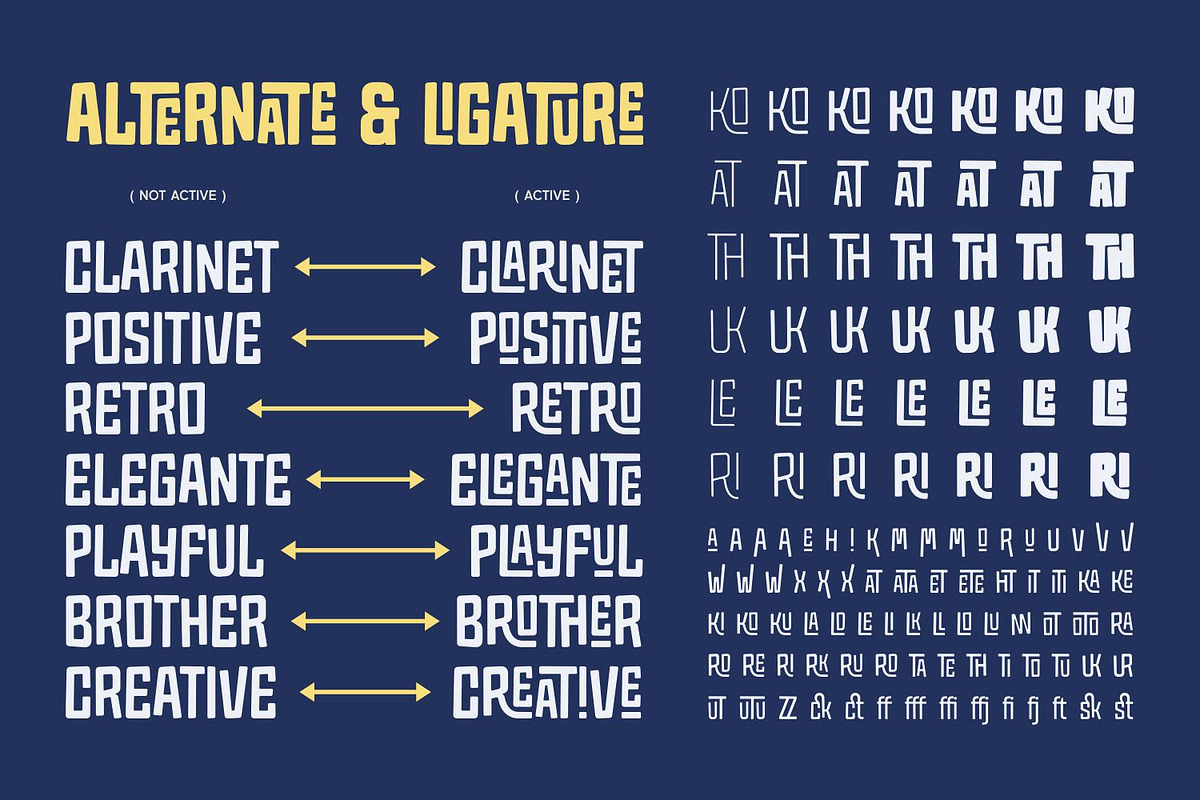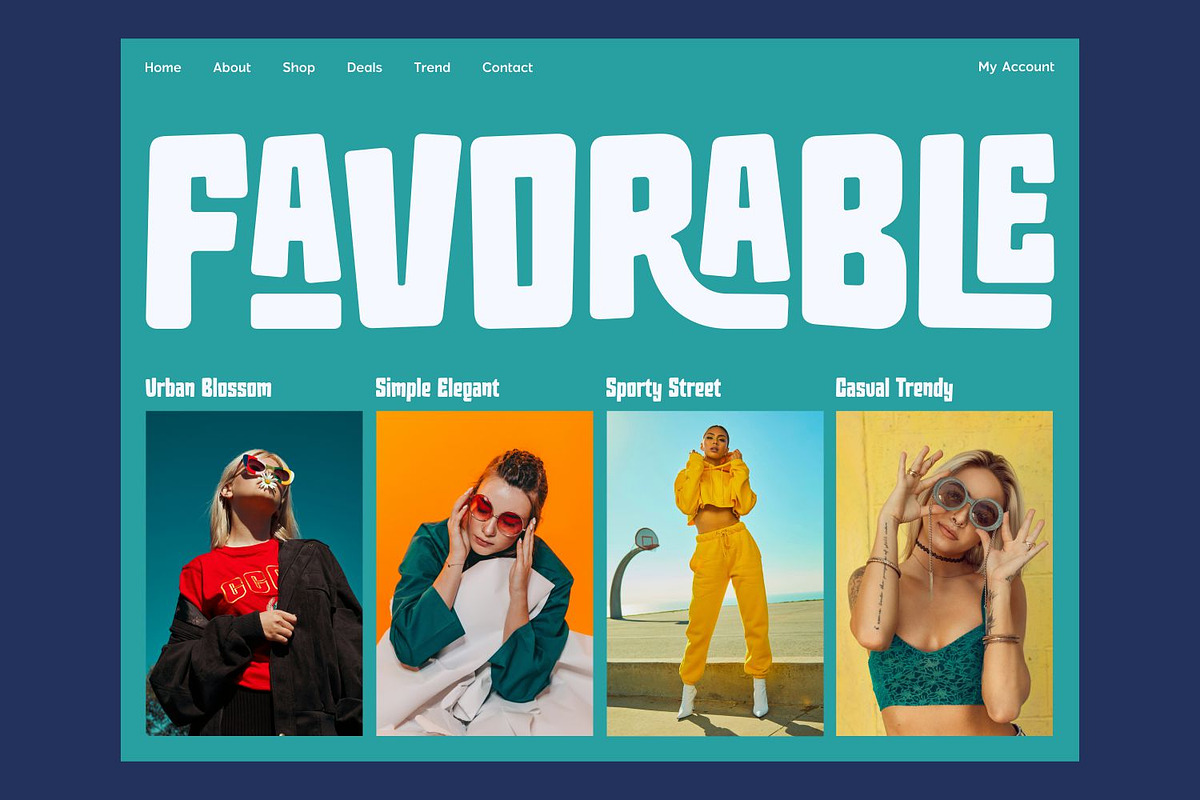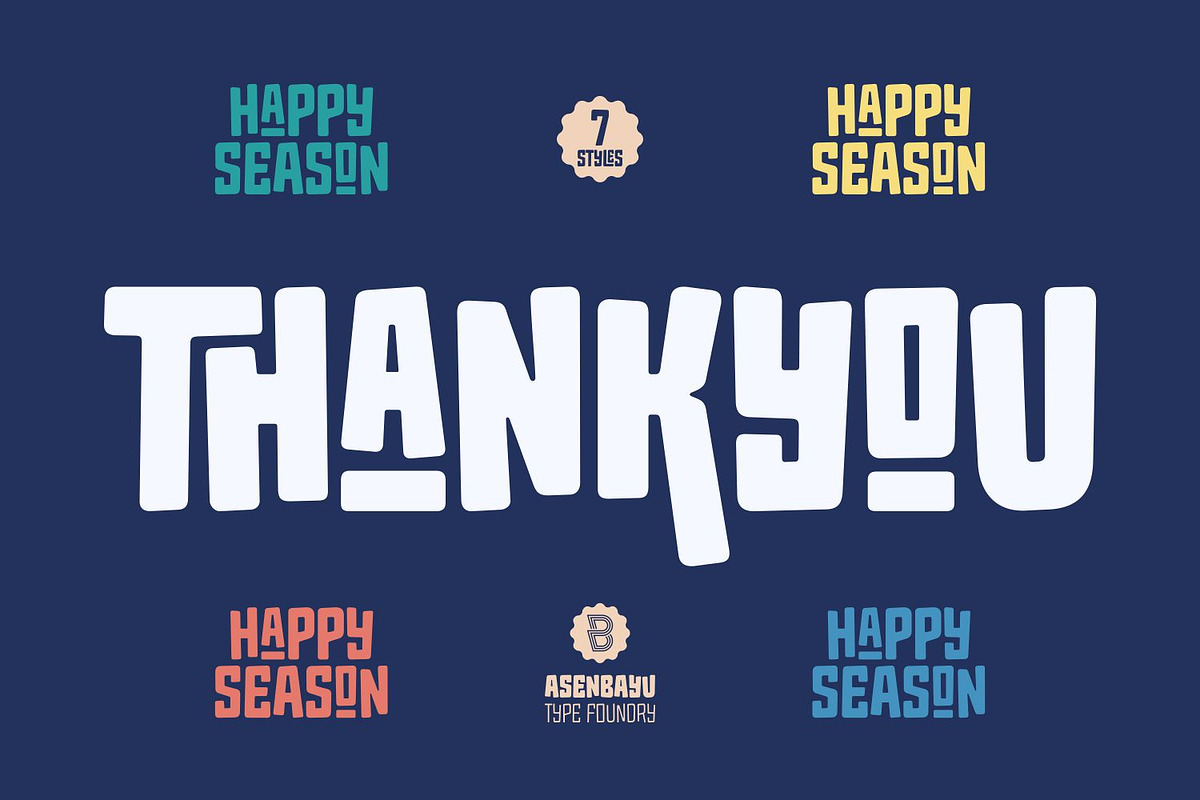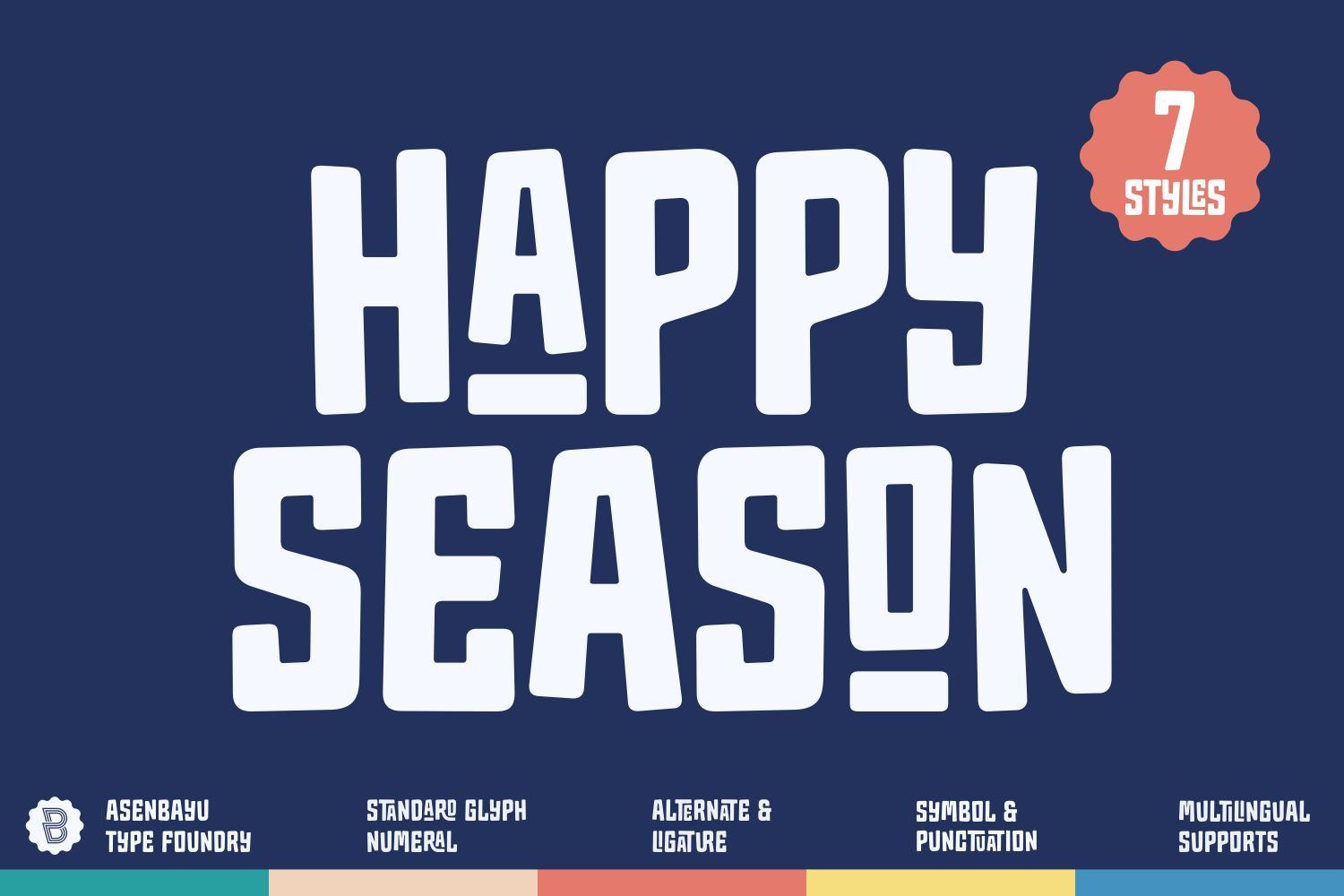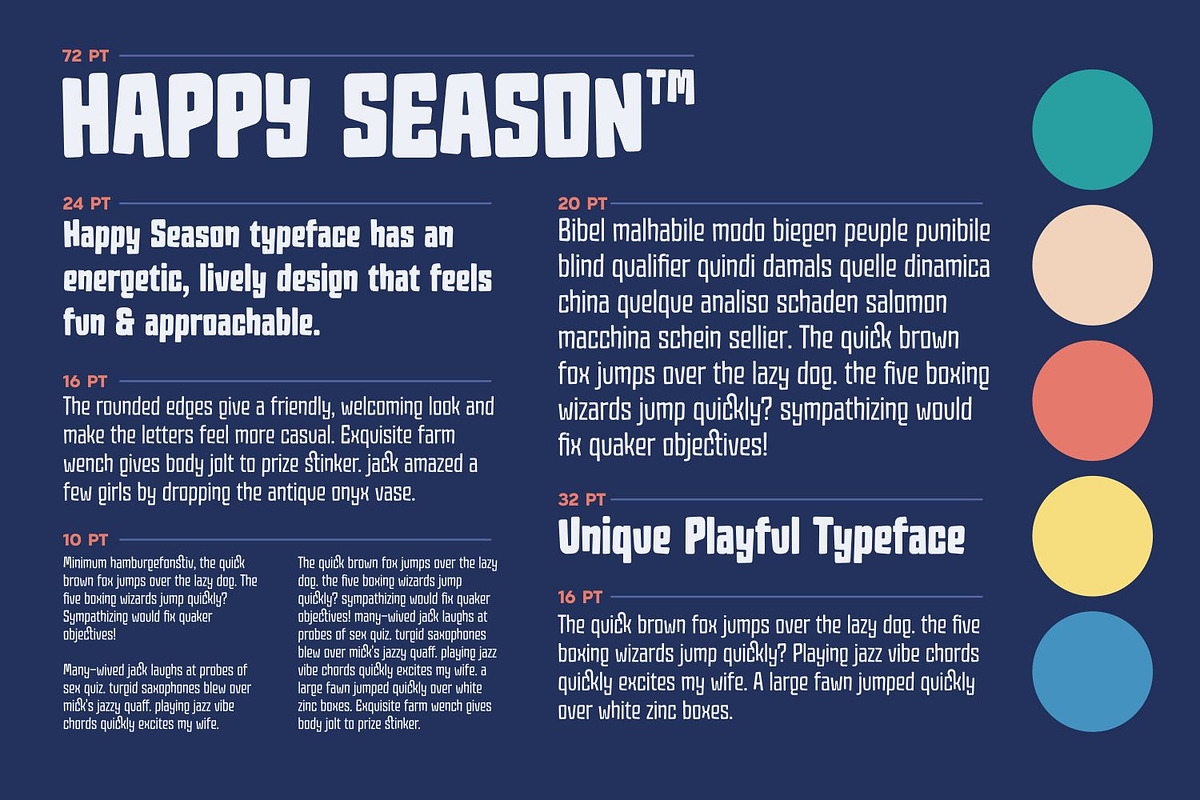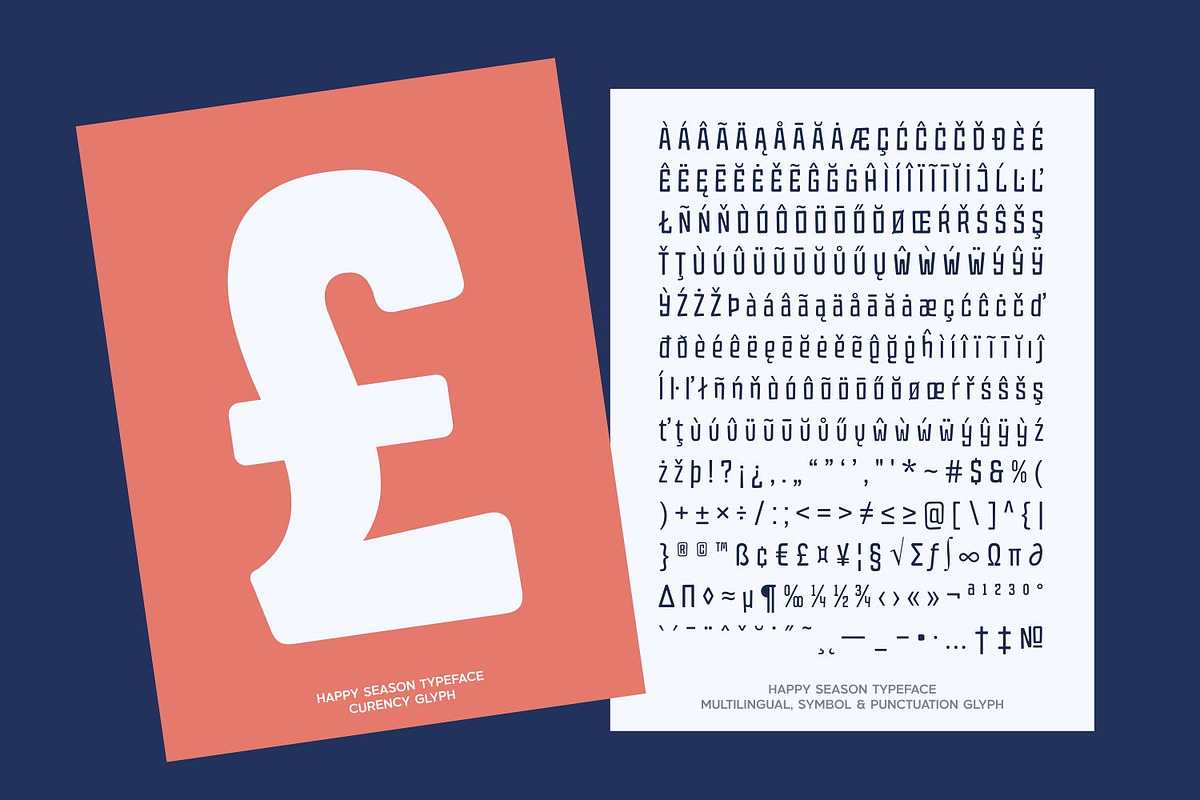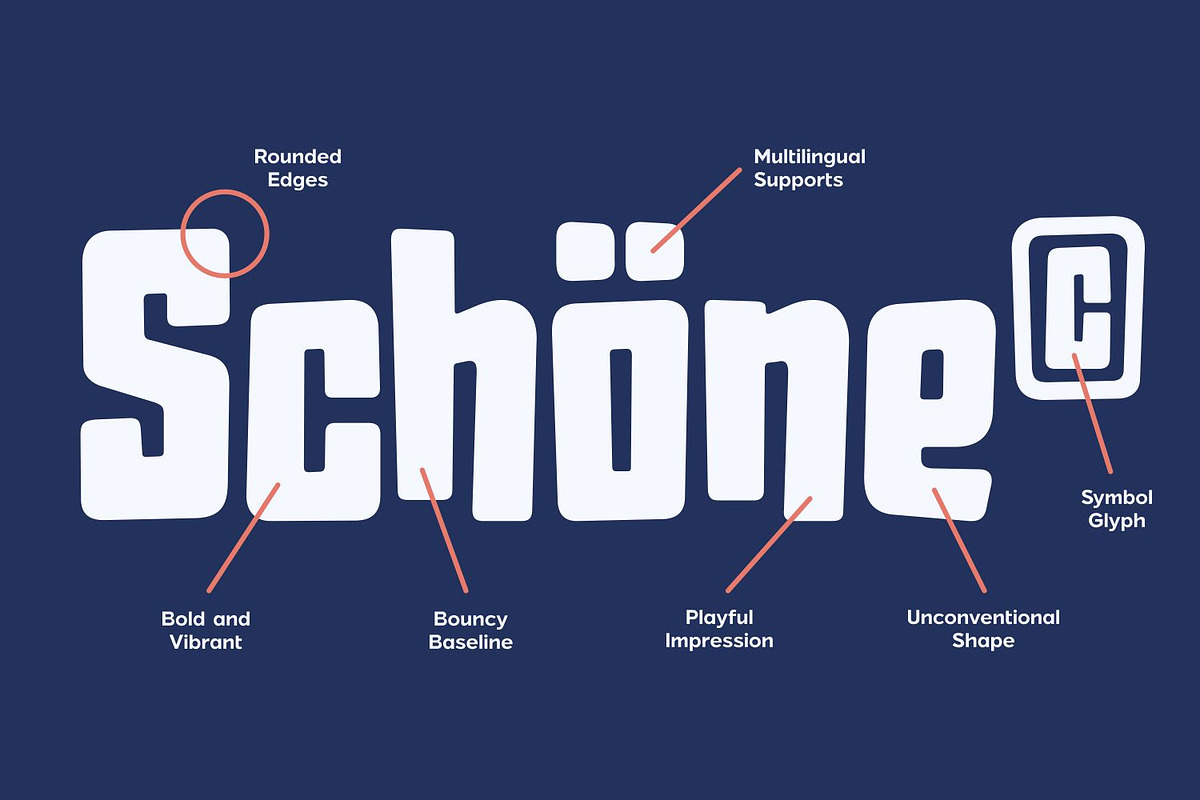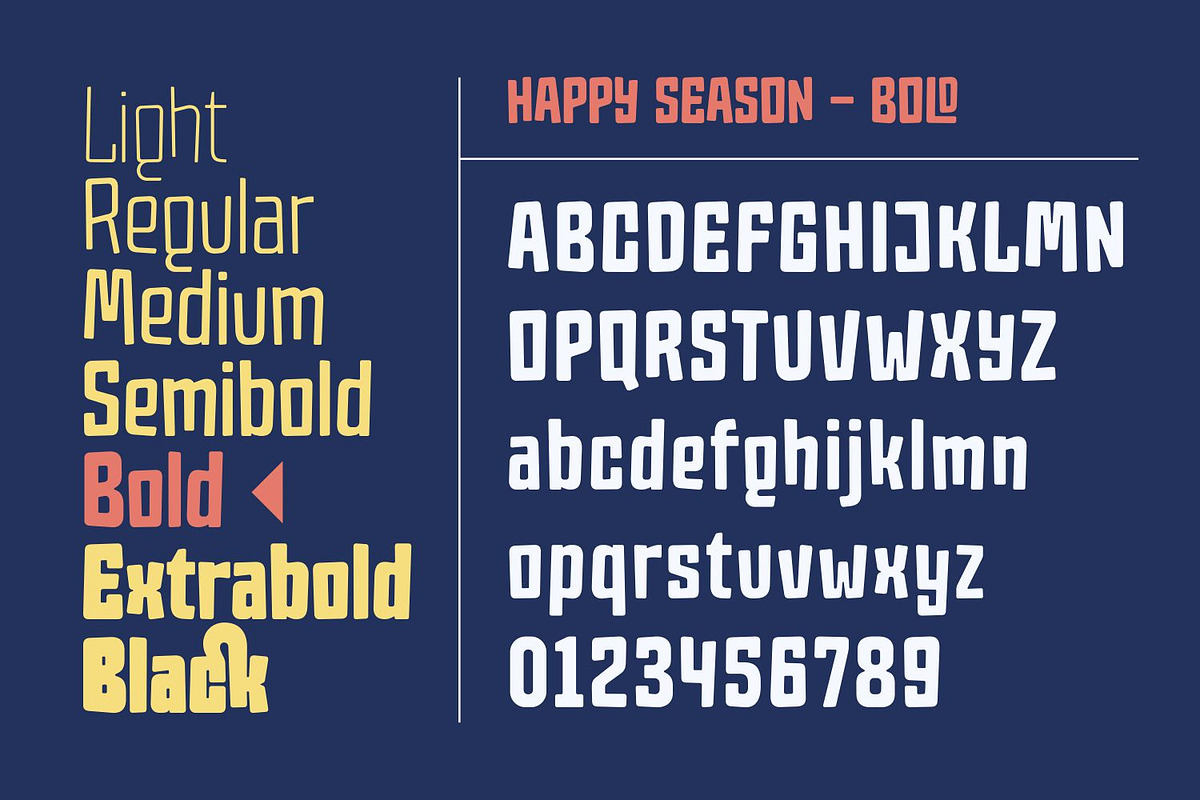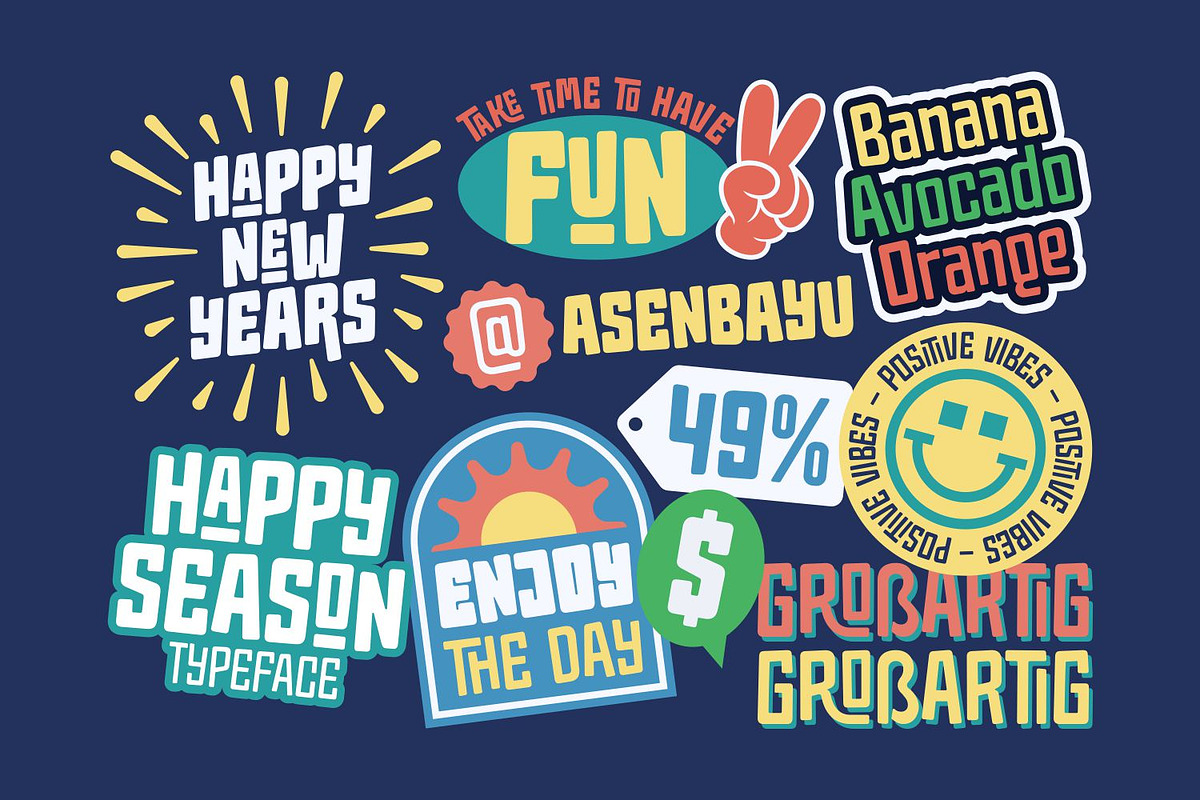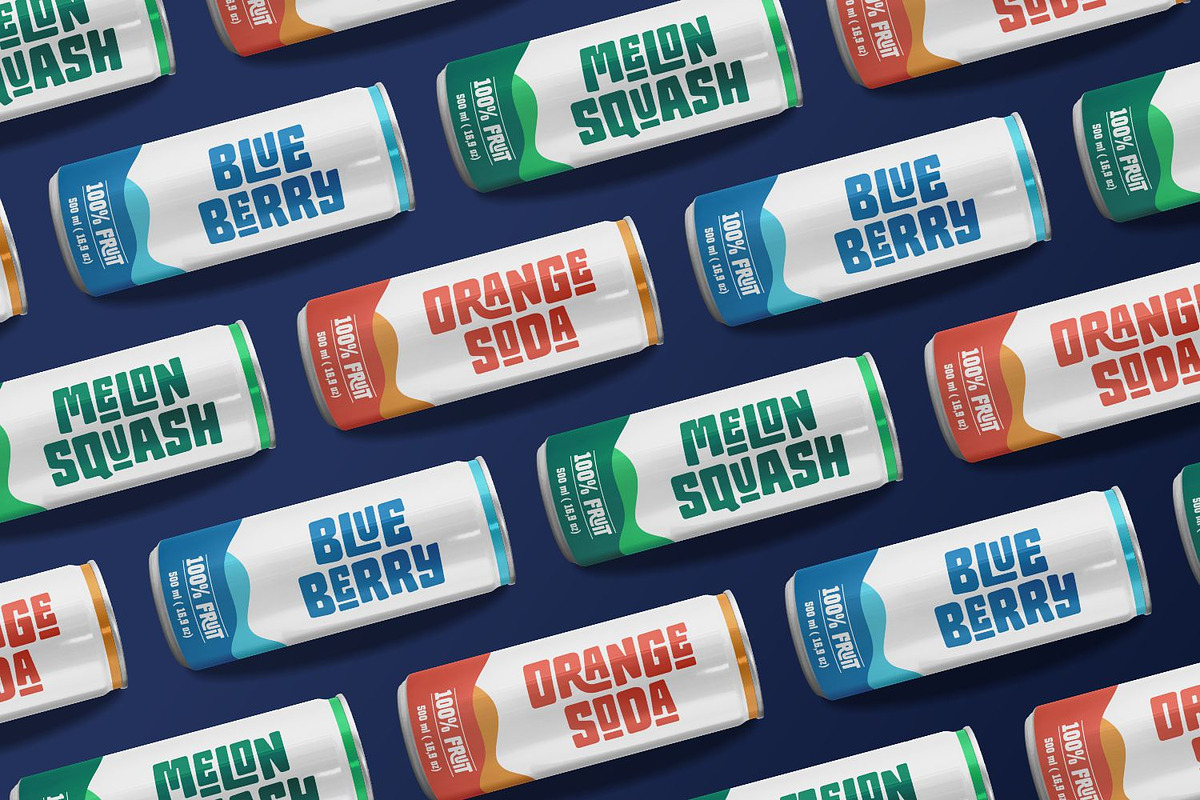
Happy Season Font Family
Happy Season is modern playful sans serif font family consisting of 7 styles. Happy Season font has an energetic, lively design that feels fun & approachable. The rounded edges give a friendly, welcoming look and make the letters feel more casual. This font is suitable for trendy packaging label designs, unique desired logos, headlines, poster designs, fashion and many more.
- 7 Styles Light to Black
- Standard Glyph
- Stylistic Alternate & Ligature
- Multiple Languages Supported